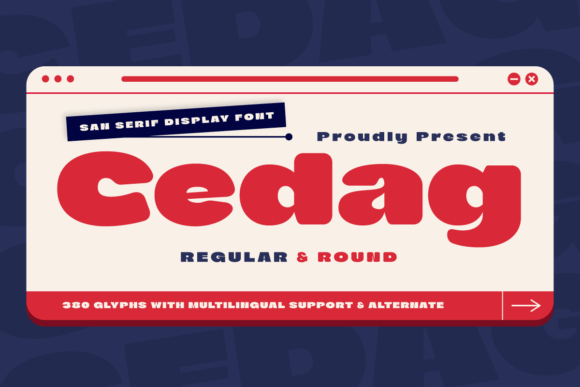
In the realm of digital expression, where words dance across screens and pixels tell tales, there exists a font that captivates hearts and commands attention - Cedag, the pinnacle of professional typography. From the masterminds at Productype, this sans-serif sensation unfolds as a symphony of elegance and audacity, leaving an indelible mark on the world of design.
Cedag's allure lies in its duality, a harmonious dance between two distinct families: the Regular and the Round. Each possesses a unique charm, yet they share a common thread of modernity and sophistication. The Regular family exudes a confident and assertive stance, its sharp edges and clean lines carving a path of boldness through the digital landscape. The Round family, on the other hand, embraces a softer, more approachable demeanor, its curves adding a touch of warmth and playfulness to any project.
With Cedag, the possibilities are boundless. Its versatility knows no limits, adapting seamlessly to a myriad of creative endeavors. Whether you're crafting a professional report, designing an eye-catching logo, or weaving enchanting stories through digital art, Cedag stands as your steadfast companion, elevating your work to new heights of sophistication.
This font is crafted with the utmost care and precision, ensuring flawless execution in every detail. Its PUA encoding opens up a world of glyphs and swashes, allowing you to unleash your creativity and add a touch of magic to your designs. Each letter, each stroke, each curve has been meticulously designed to convey both beauty and functionality, creating a visual masterpiece that transcends the ordinary.
As you embark on your creative journey, let Cedag be your trusted guide, leading you to realms of design brilliance. Its captivating presence will transform your words into works of art, leaving a lasting impression on all who encounter them. Embrace the power of Cedag, and watch as your projects blossom into masterpieces, leaving an indelible mark on the digital canvas.